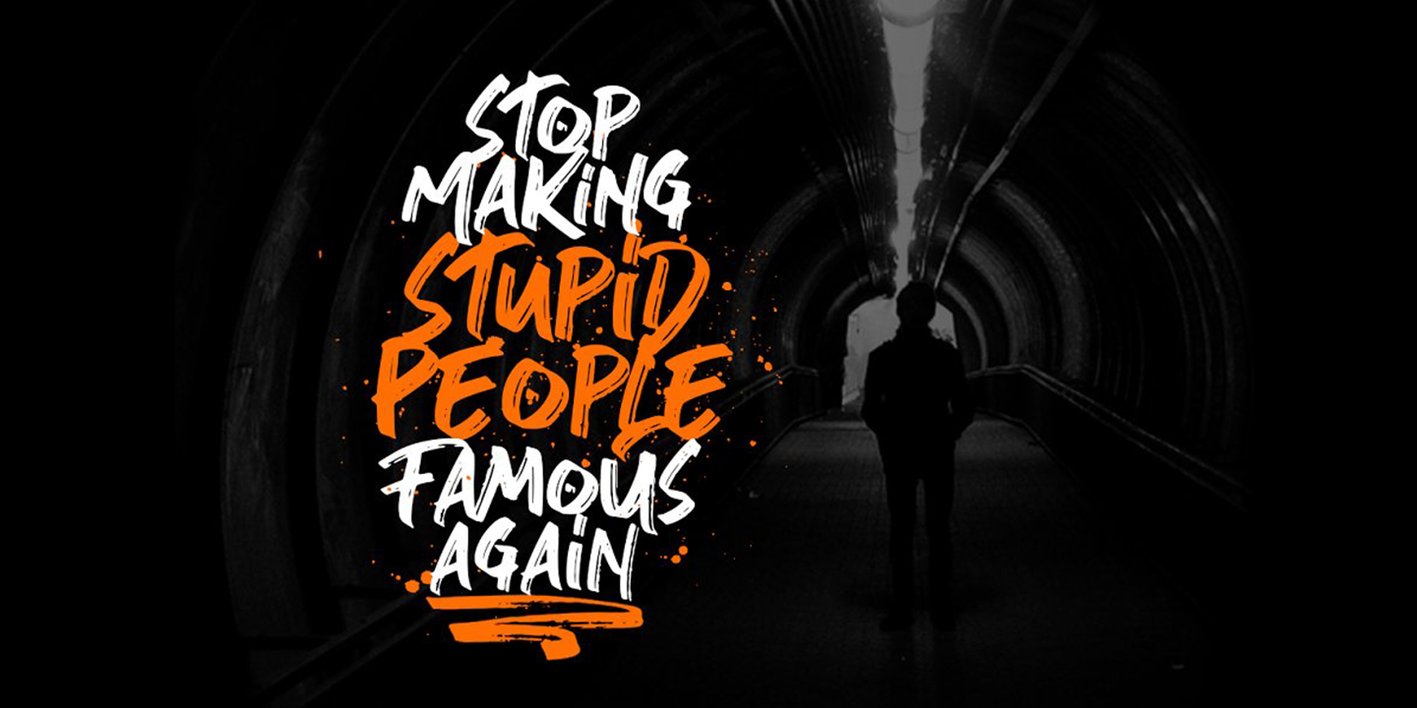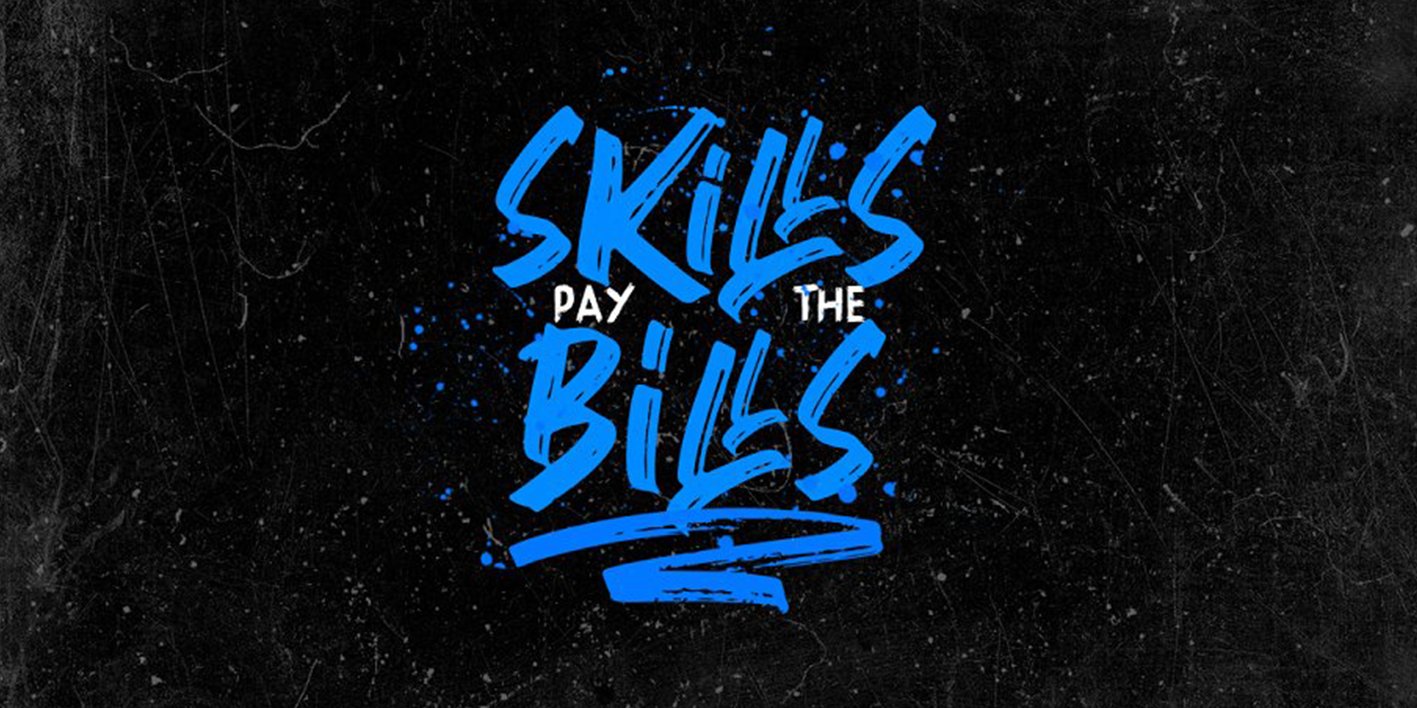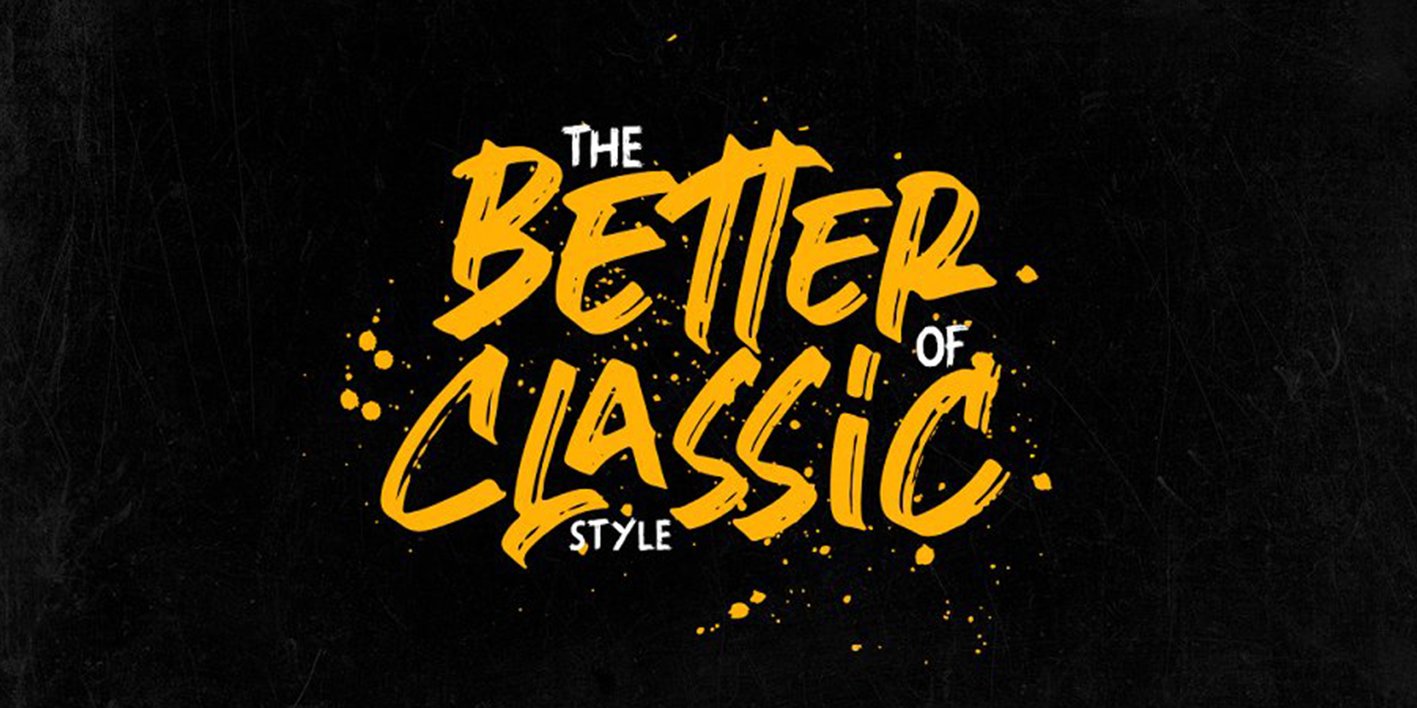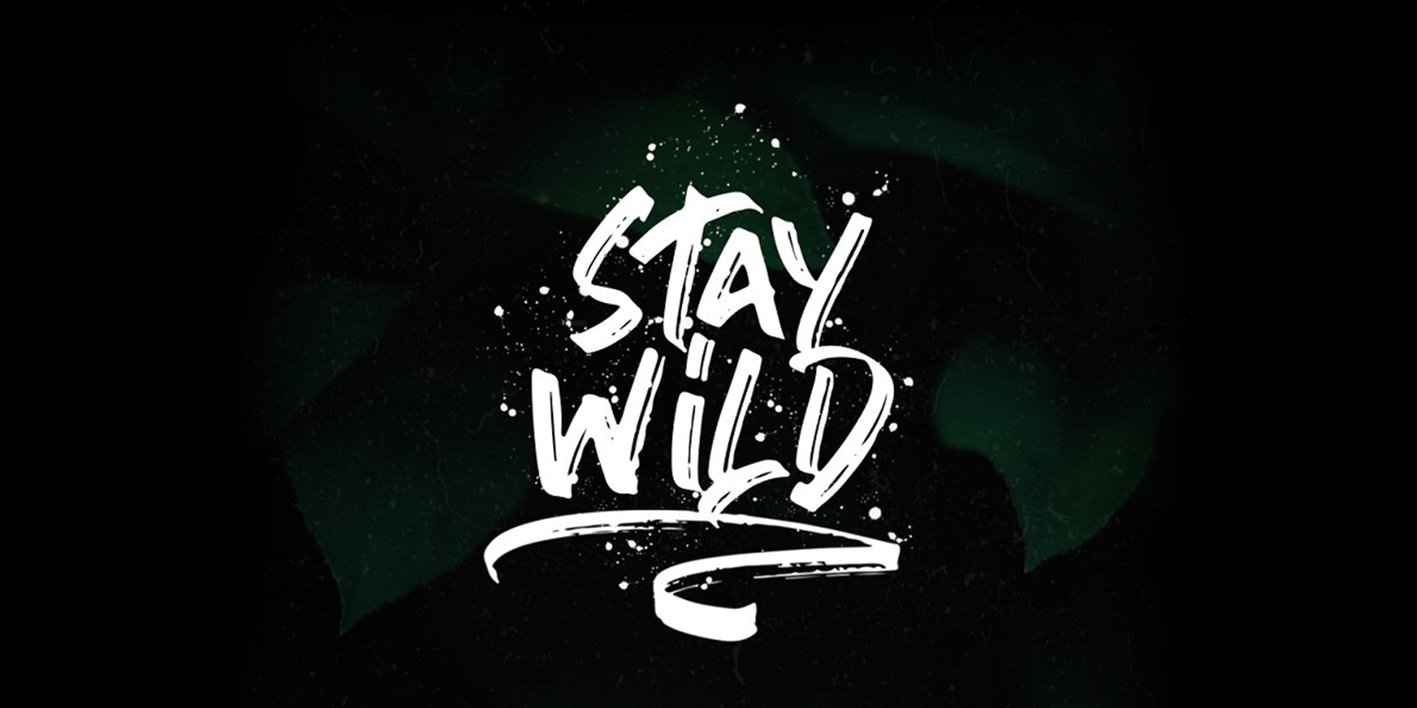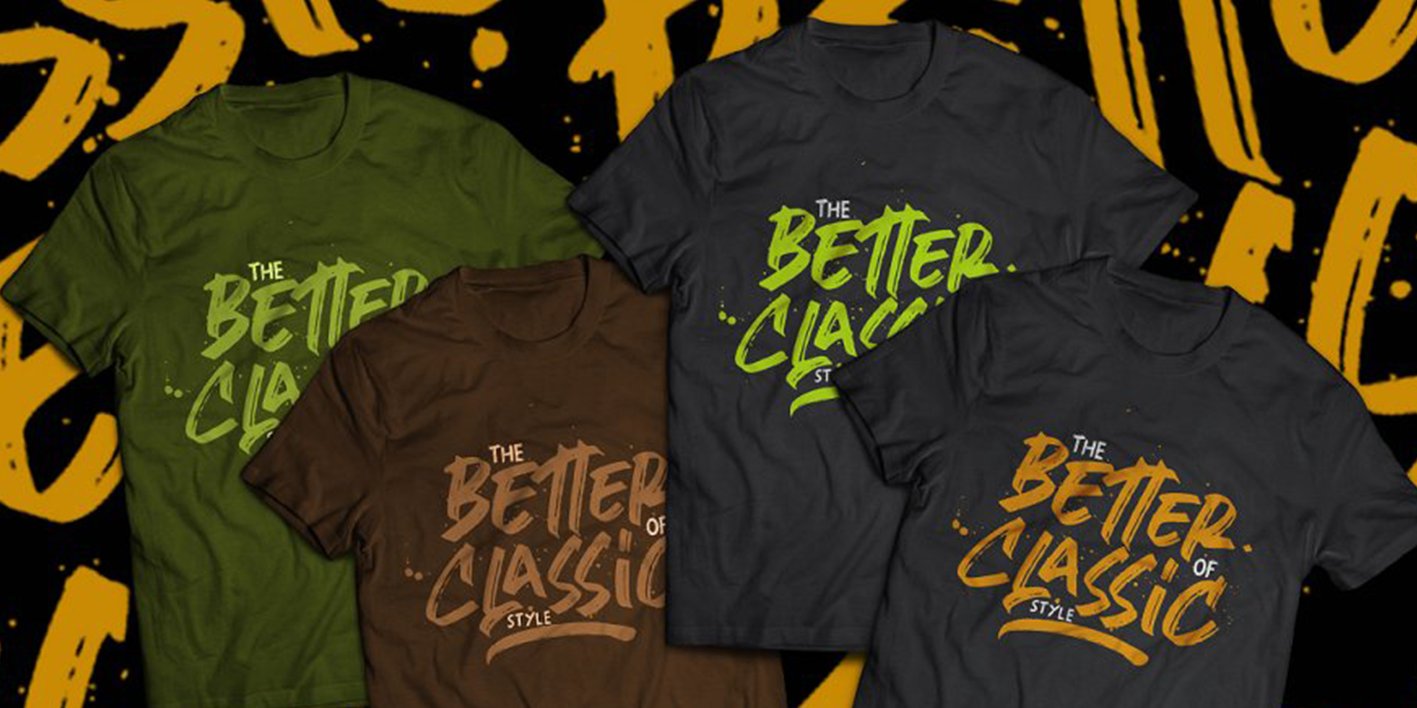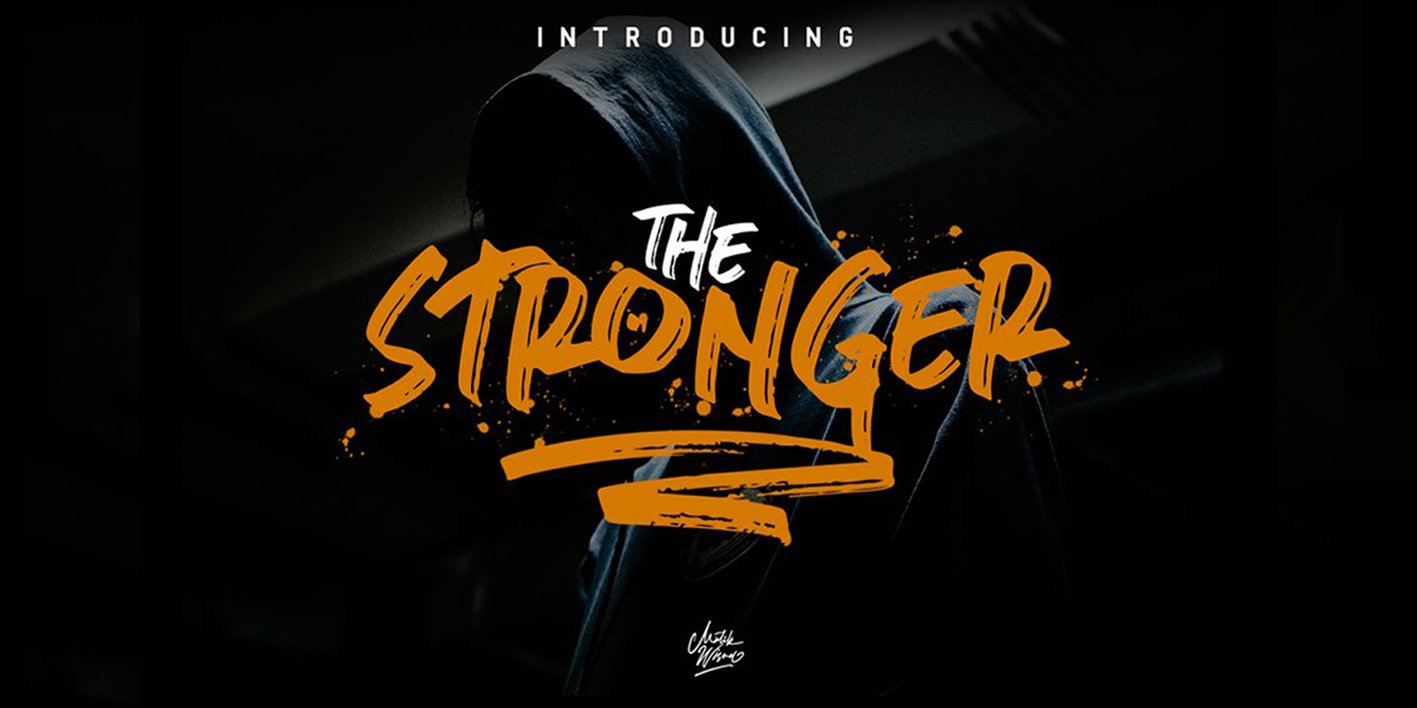
Stronger Font
Stronger is a supercharged, street-wise brush font bursting with energy. With extra attention to quick strokes and sharp details, Stronger is ideal for logos, apparel, quotes, product packaging, or anything which needs a typographic turbo-boost. What's Included: Stronger Regular - The standard version of the font. Perfect for titles and logos. Stronger Swash - Need a cool underline under your text or a splash of paint? This font set has you covered. Type any letter a-z using this font, and you'll get a unique swash to accompany the font